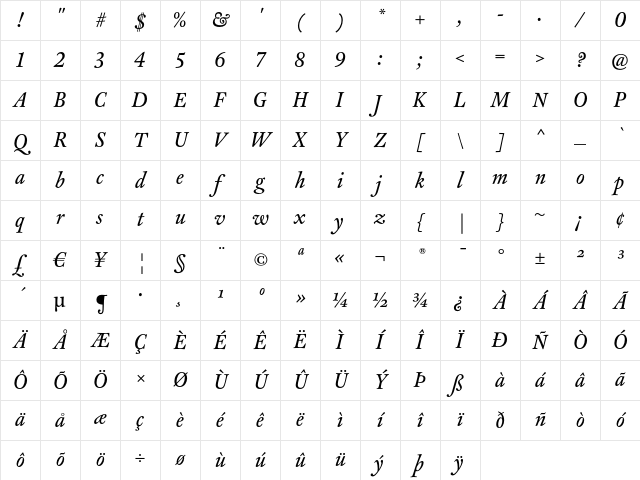
CliffordEighteen is a composed and adaptable typeface that performs quietly and consistently across a wide range of design contexts. The slanted form adds forward momentum and visual energy.
Pro Tip: Use CliffordEighteen for emphasis, pull quotes, and subheadings where its slanted energy can add rhythm to the layout.